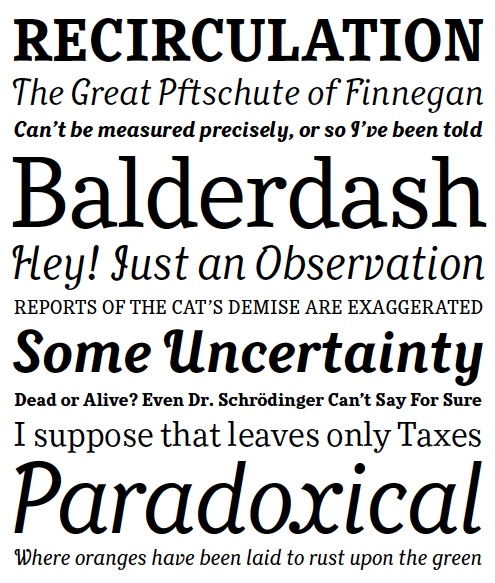
Bullen Font
Bullen Font is perfect for sports team branding, fitness center marketing, athletic equipment packaging, competitive training programs, professional sports merchandise, gym facility signage, championship event promotions, and energetic sporting goods displays. This powerful typeface excels in applications where athletic strength and competitive spirit are essential for creating dynamic and motivating brand experiences that celebrate physical excellence and sporting achievement.
What makes Bullen Font truly exciting is its commanding embodiment of athletic power and competitive determination that captures the raw energy of professional sports and the unwavering focus of championship-level performance. The font features bold, muscular letterforms with strong geometric construction and athletic-inspired details that mirror the physical strength of elite athletes and the disciplined training required for sporting excellence. Its powerful personality and competitive character create an immediate sense of energy and athletic prowess that resonates with audiences seeking authentic sporting experiences and fitness motivation. The typeface's athletic heritage and championship appeal make it perfect for brands wanting to convey strength, determination, and connection to the inspiring world of competitive sports and physical achievement.
The Bullen Font family includes multiple weights from Regular to Ultra Bold, complemented by condensed versions that enhance its athletic versatility. The font offers comprehensive character sets with sports symbols, athletic indicators, and competitive styling details that enhance its powerful aesthetic. Additional graphic elements including muscle patterns, sports motifs, championship ornaments, and athletic flourishes provide designers with complete branding tools rooted in sports culture and competitive excellence traditions.